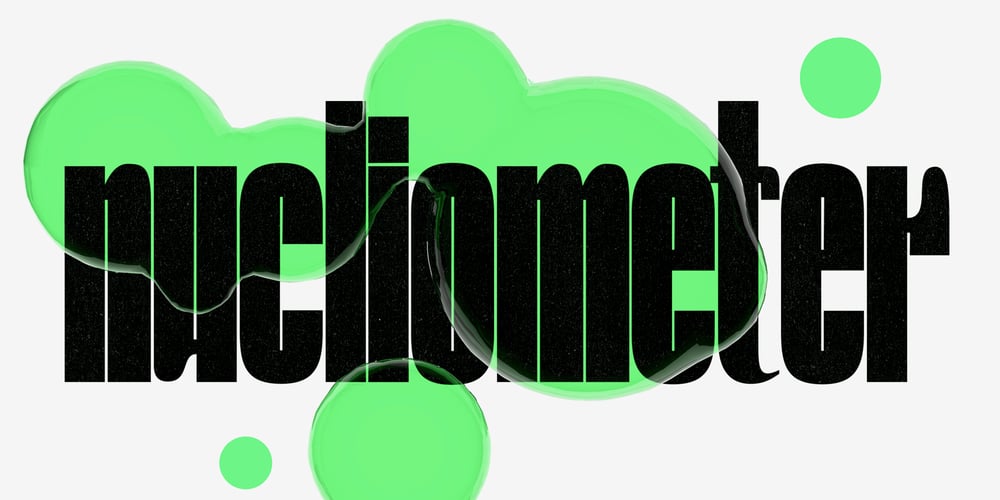
Nucliometer Font Family was designed by Roman Postovoy and published by Supremat. Nucliometer contains 6 styles and family package options. Nucleometer is a very contrasting and at the same time elegant display font. It is ideal for large headlines and impressionable typography.A feature of the Nucleometer is the rounding of the lowercase letters a, b and r, as well as a funny “tail” in the letters t, g, j, f, t, y. This gives it a more lively and unique character. Another interesting feature is the increased proportion of the ascender height of Ultra Condensed, which is larger than the usual Bold font.Together, this font is ideal for a designer who needs stylish and very contrasting typography in his work.Nucliometer is available in 5 styles, starting from Bold to Bold UltraCondensed and also has a variable format.